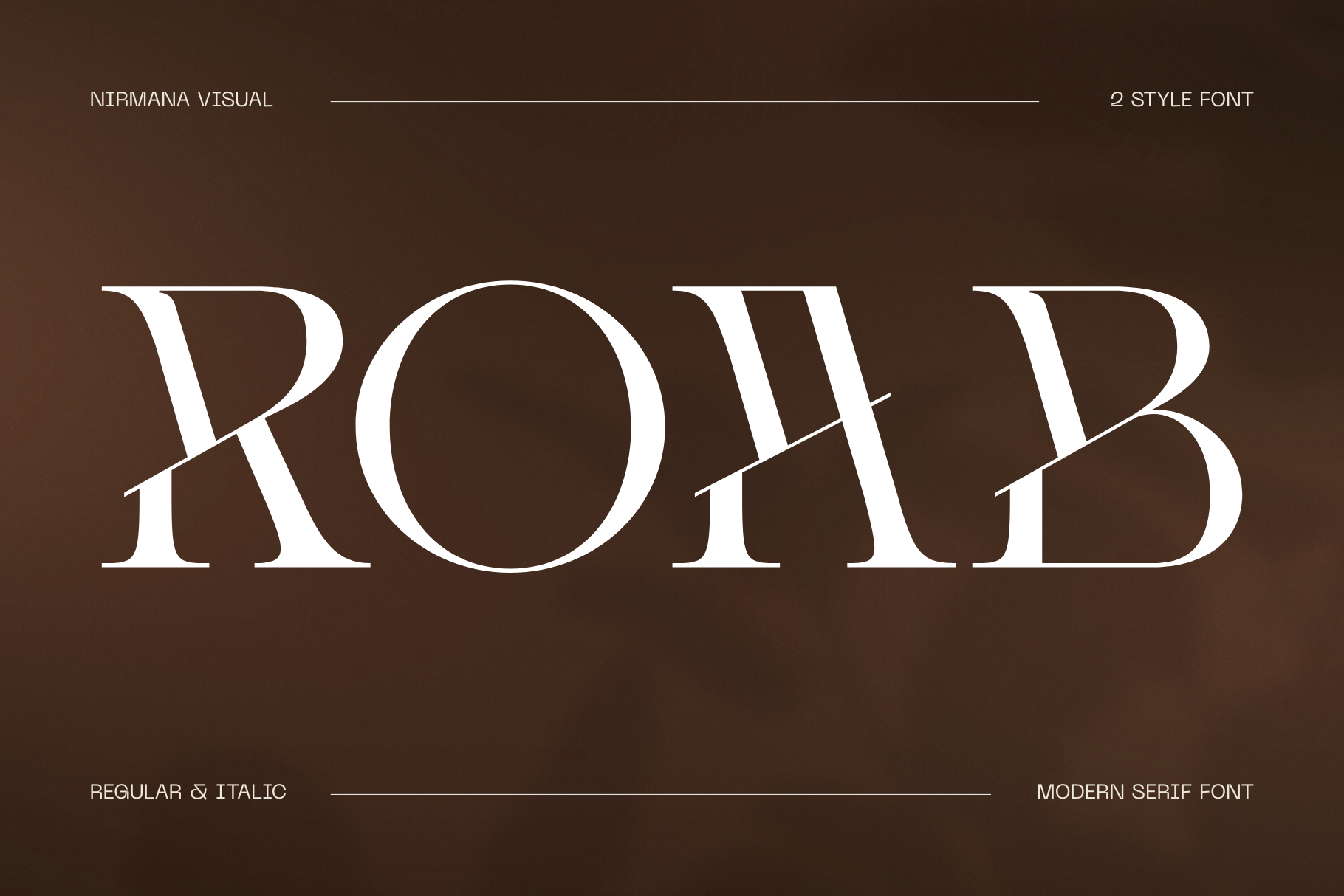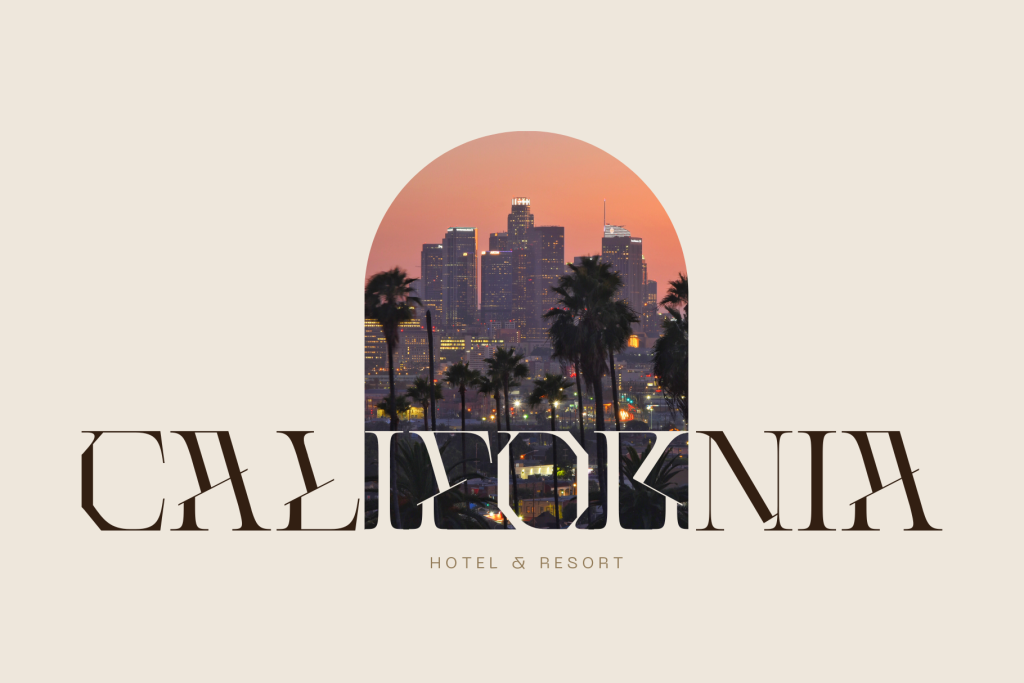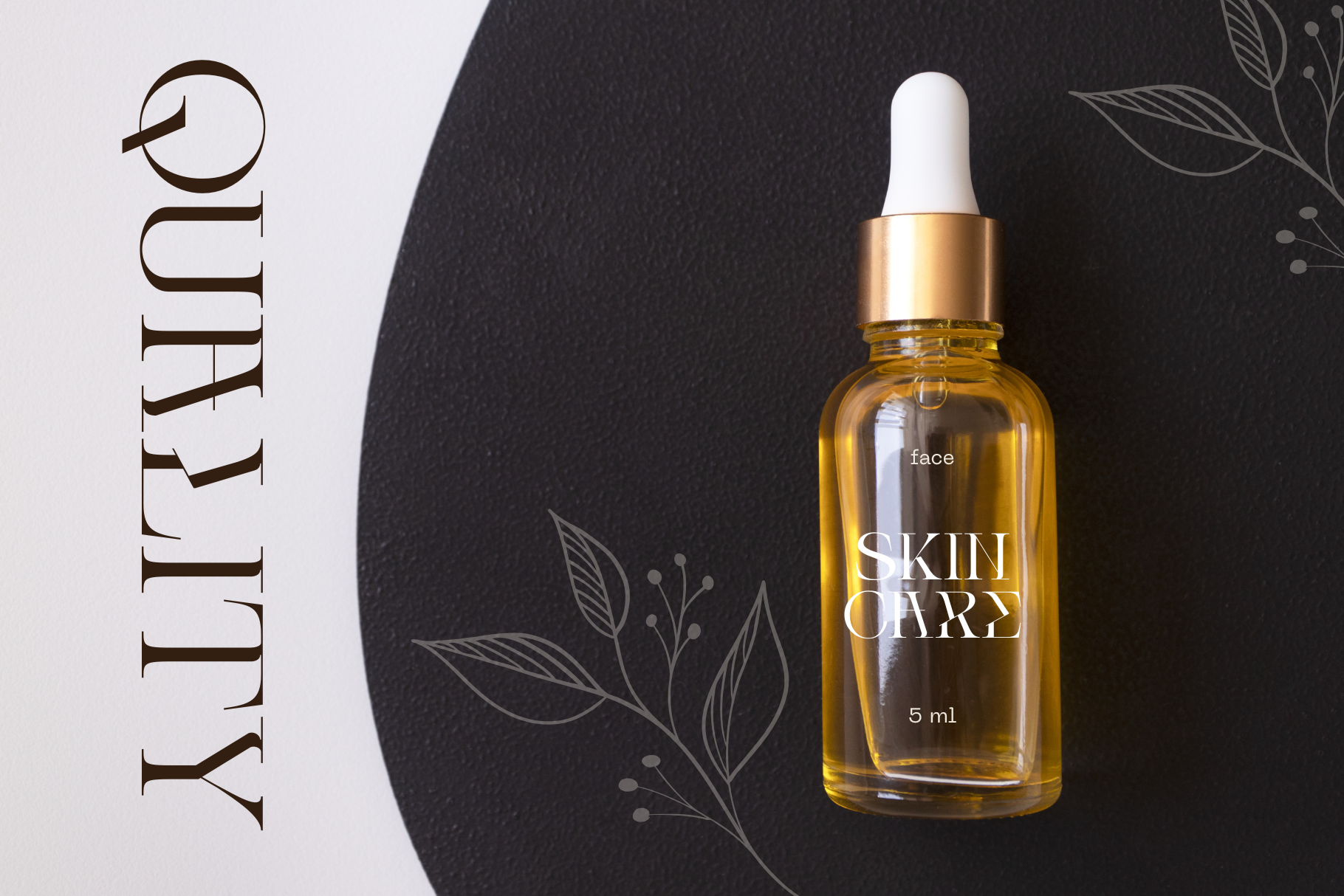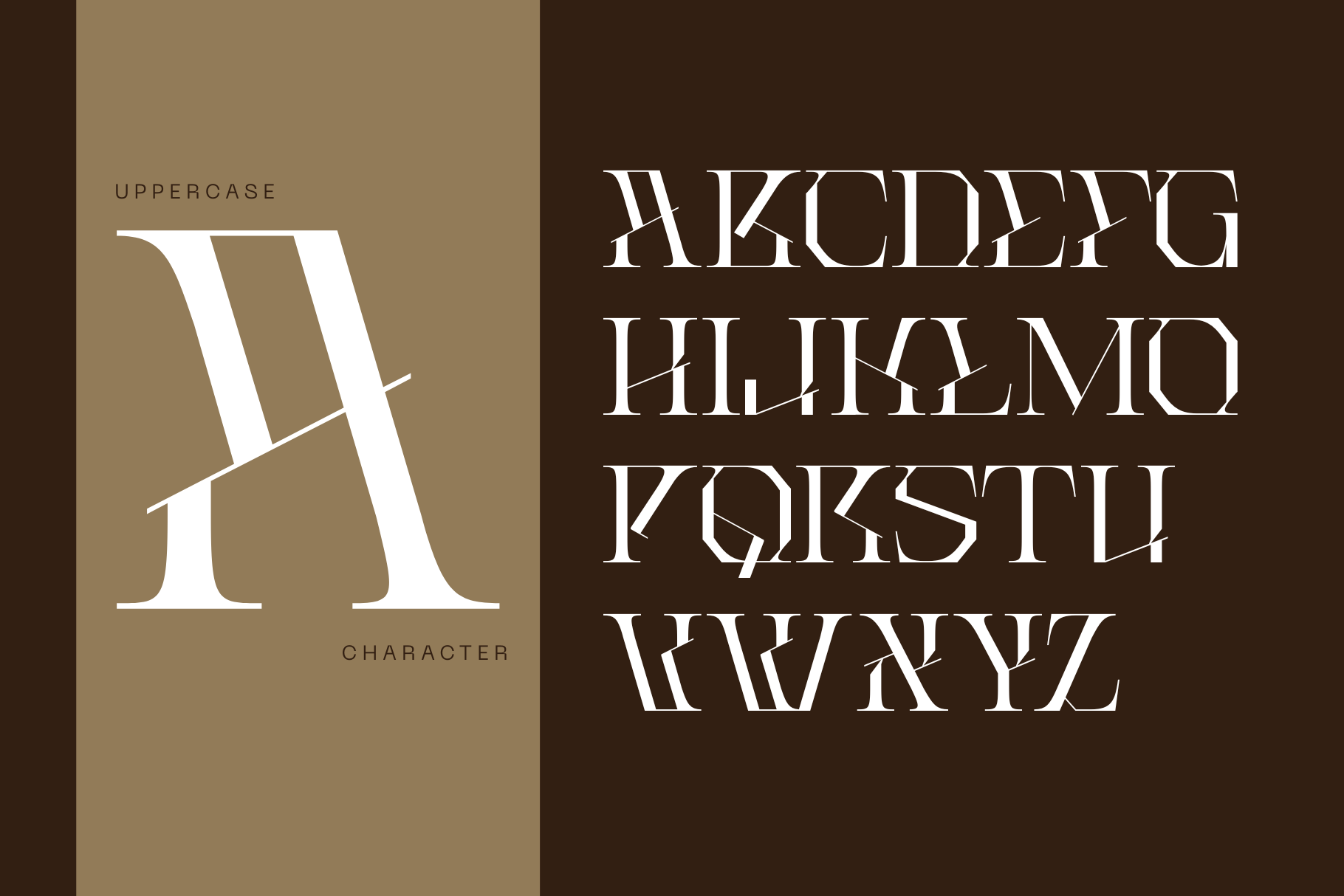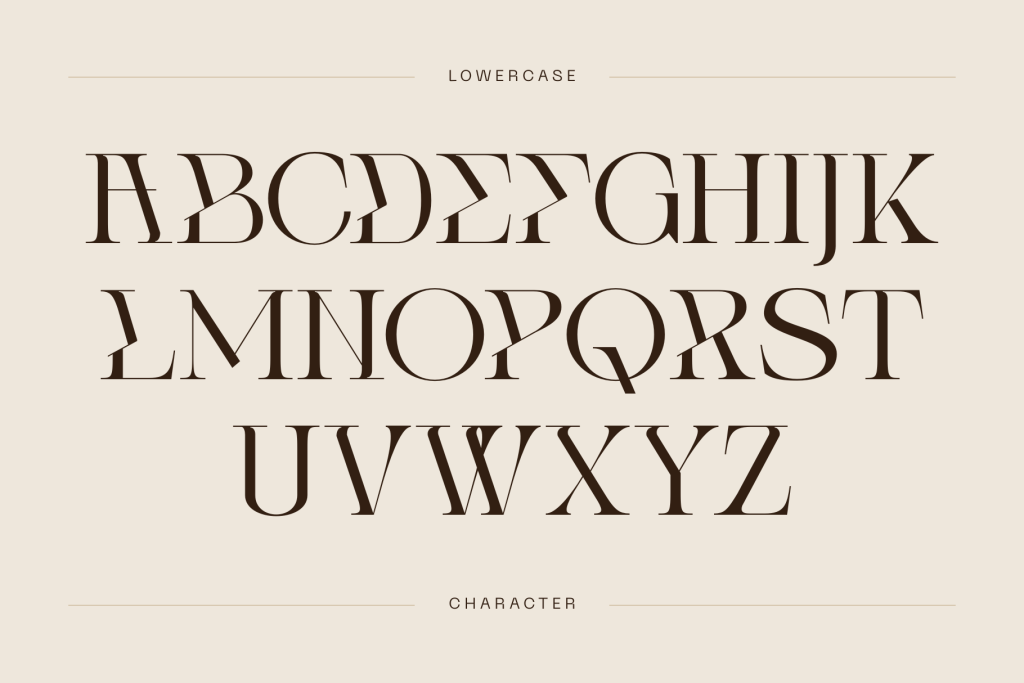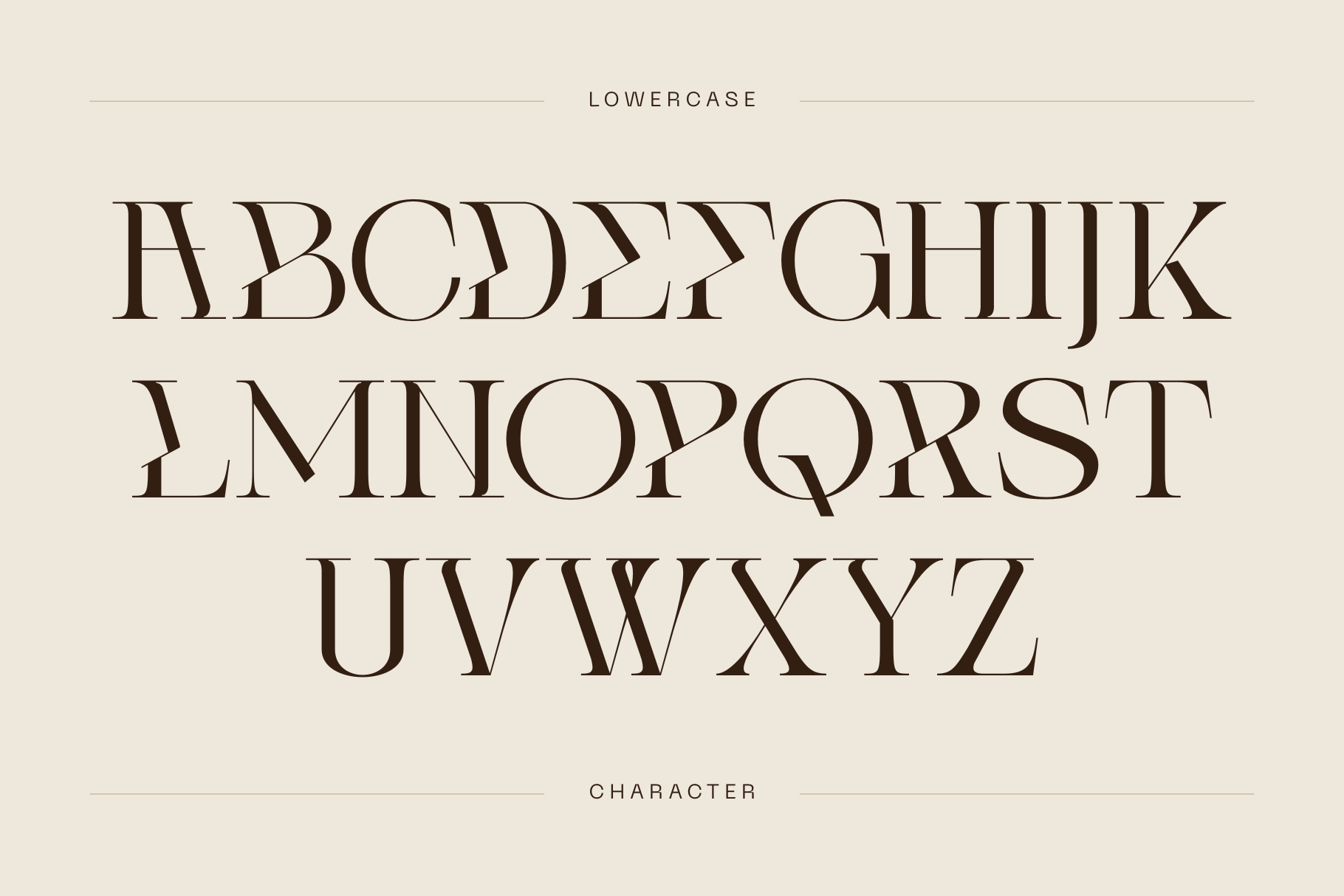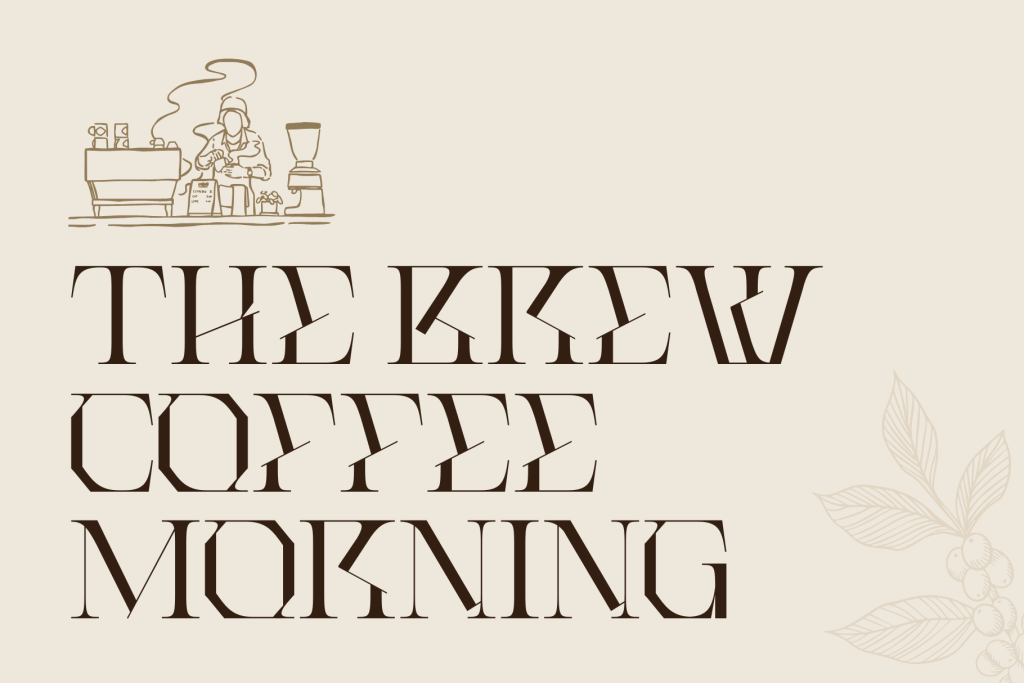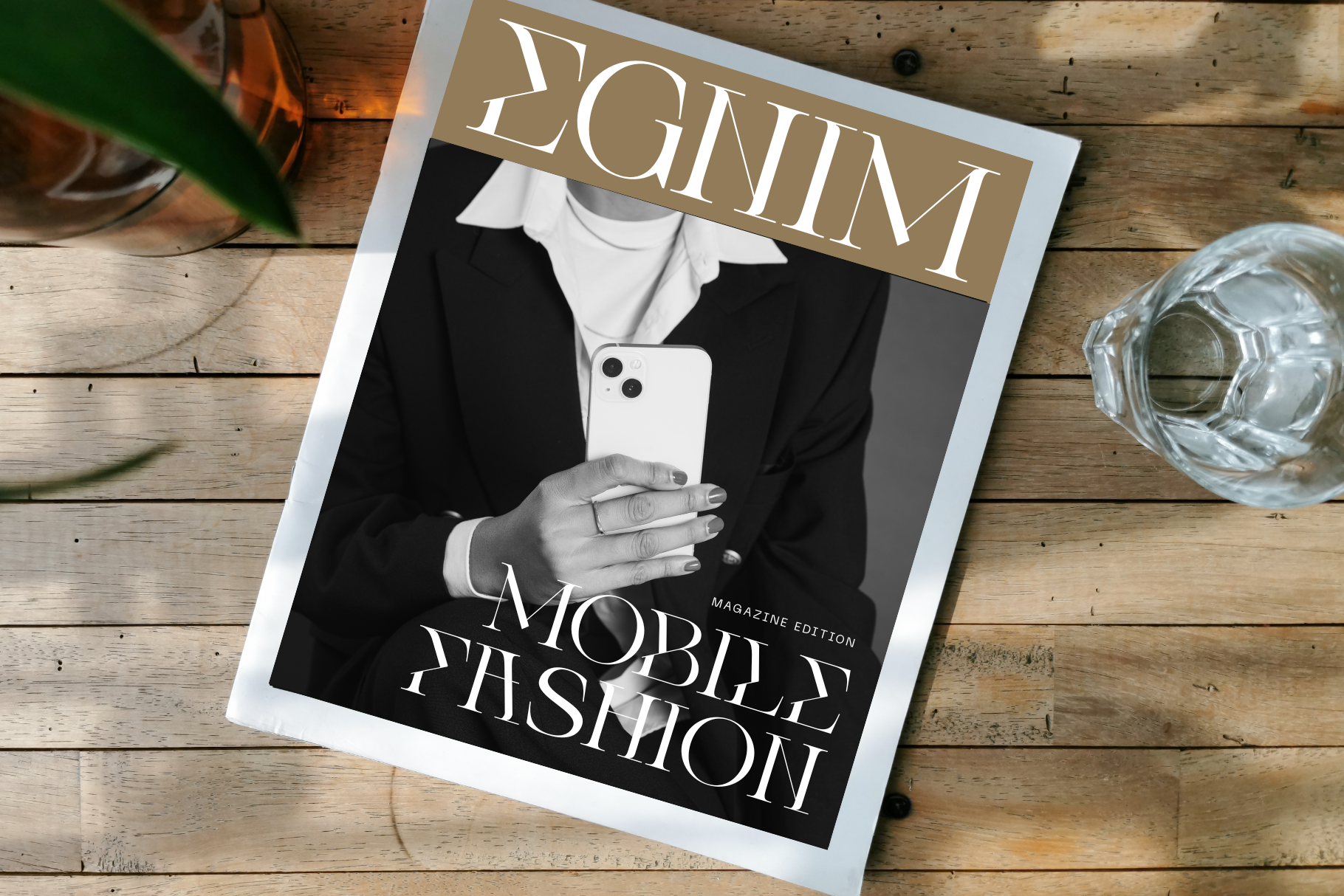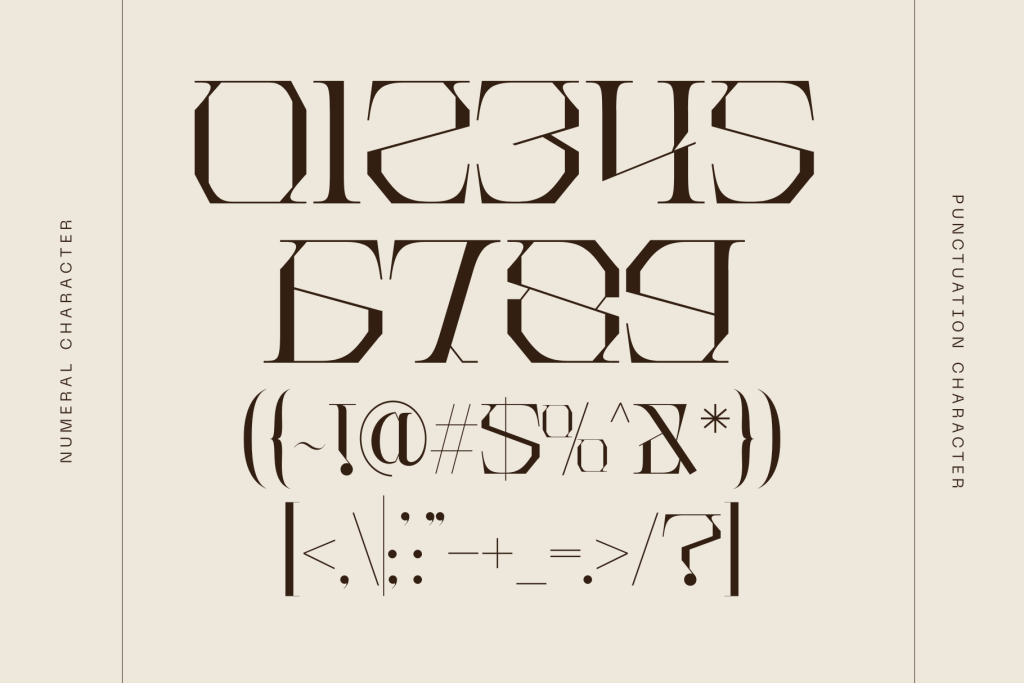
Roab Luxury- Modern Logo Font
Roab Luxury offers beautiful typographic harmony for a diversity of design projects, including logos & branding, social media posts, advertisements & product designs.
• Modern Logo Font
• Regular + Italic
• Perfect for Branding & Logos